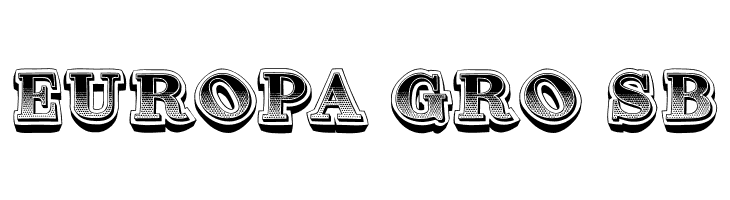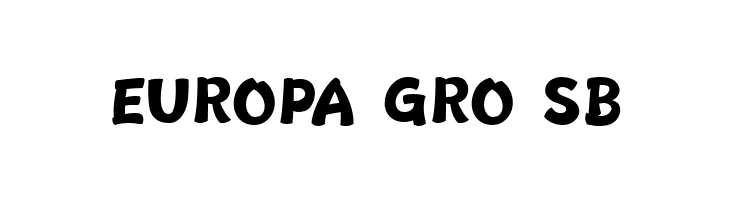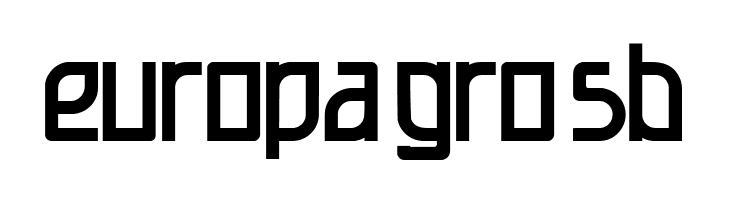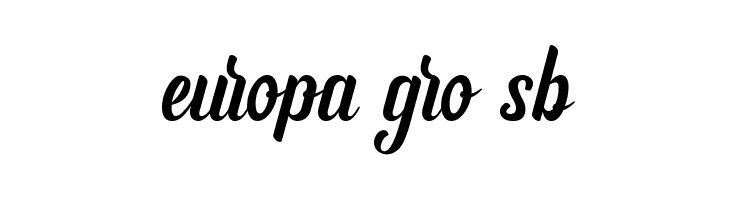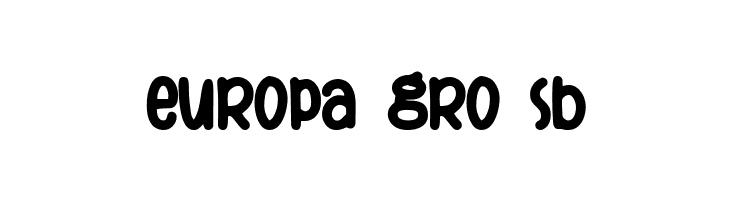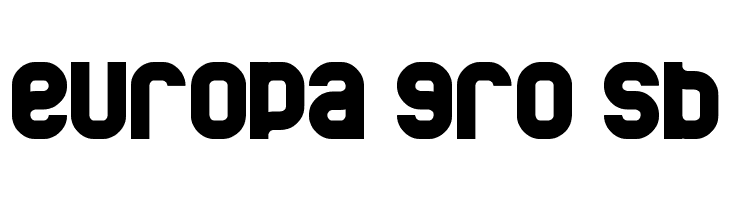
A bold, geometric font with a three-dimensional, futuristic design.
A bold, futuristic font with geometric and stencil-like elements.
A playful, handwritten font with tall, narrow letters and a casual style.
A bold, decorative font with a vintage 3D shadow effect.
A bold, playful font with a hand-drawn, casual style.
A flowing, elegant script font with interconnected letters and ornate swashes.
An elegant, cursive script font with flowing curves and delicate loops.
A playful, bold font with rounded, thick strokes and a whimsical touch.
A bold, geometric font with a modern and digital aesthetic.